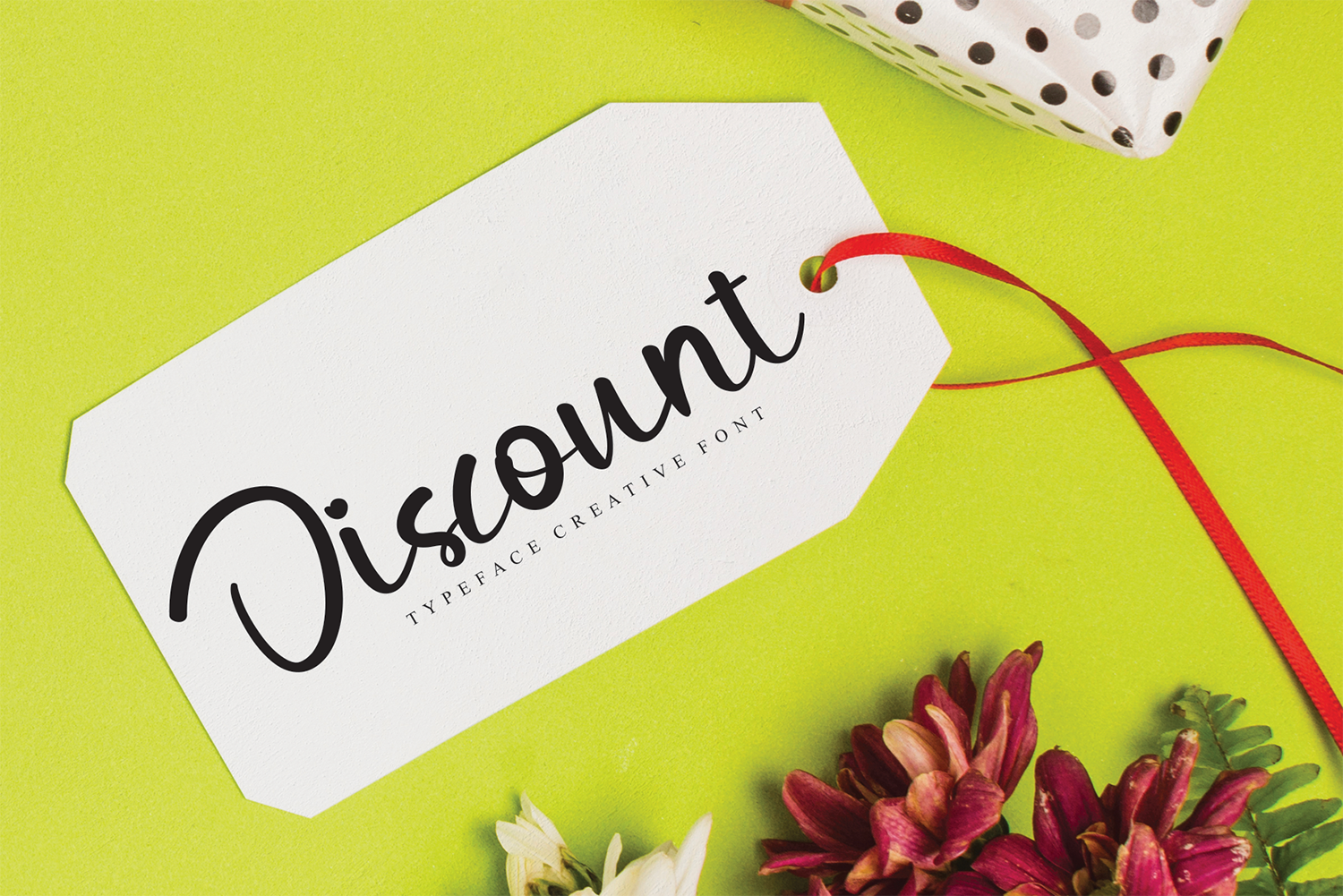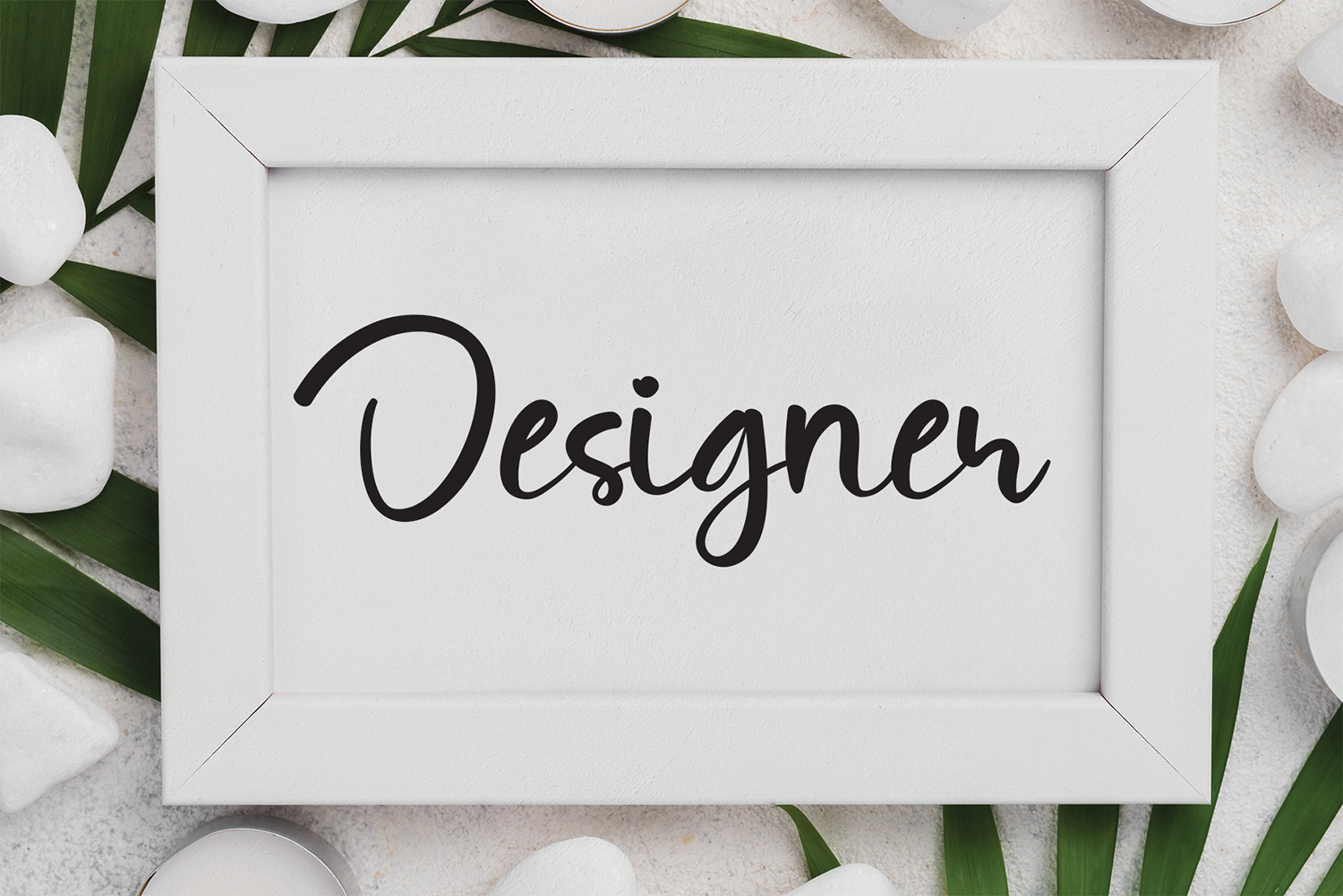
Valentine Signature Free Font
Elevate your design projects with Valentine Signature Free Font, a calligraphy typeface exuding romance and sweetness, where characters gracefully sway along the baseline. Infuse a touch of luxury into your creations with this font, turning any project into a masterpiece of emotion and style.